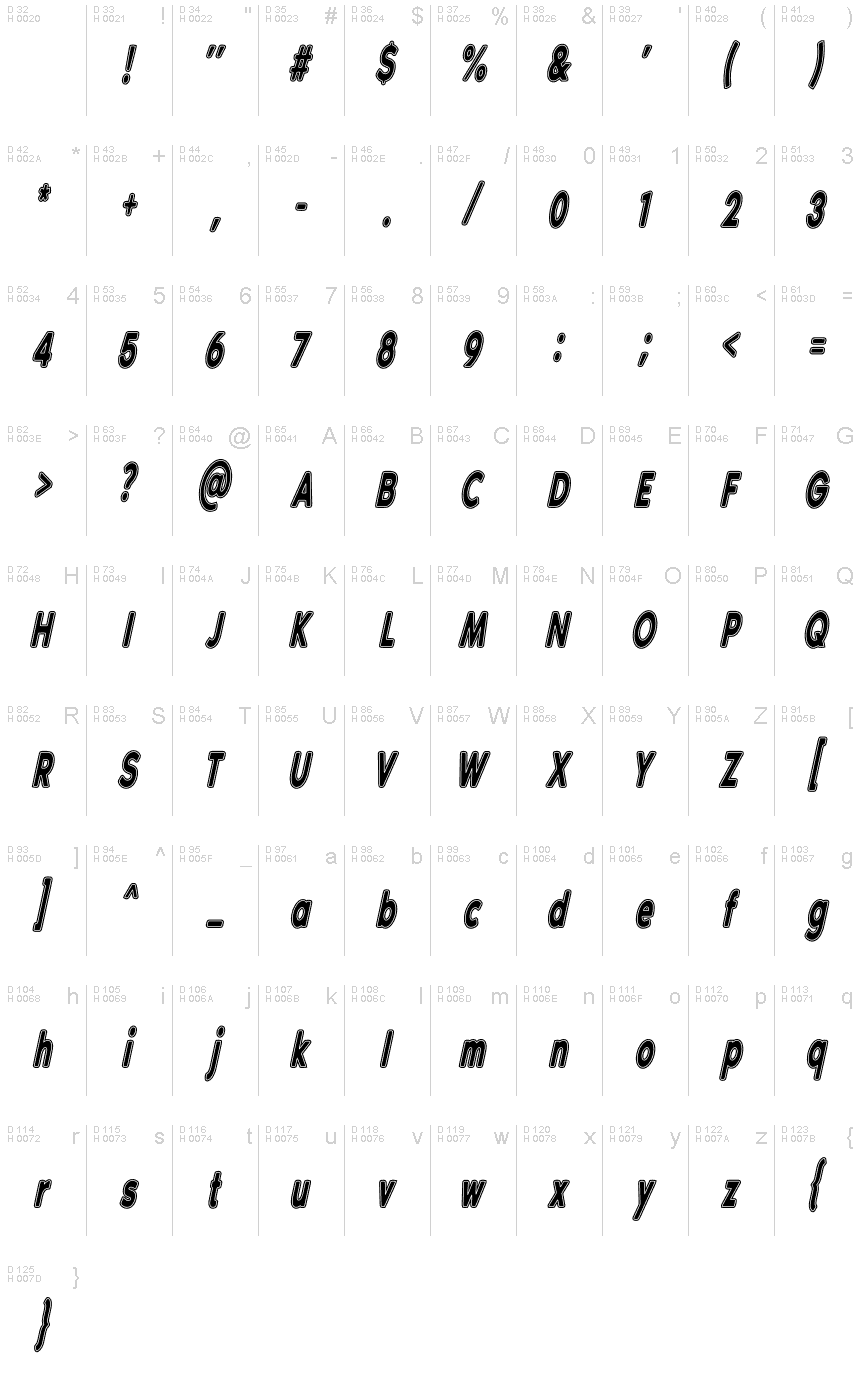
VERY HAPPY
The Very Happy font, designed by the talented Lontong Lodeh, is a captivating display typeface that exudes joy and enthusiasm. With its semi-bold weight and condensed width, this font is perfect for a wide range of projects. Its playful yet legible style makes it an ideal choice for children's books, greeting cards, party invitations, and social media graphics. Whether you're designing a lively logo or crafting eye-catching headlines, the Very Happy font will infuse your project with cheer and personality. Let this vibrant typeface bring happiness to your designs!